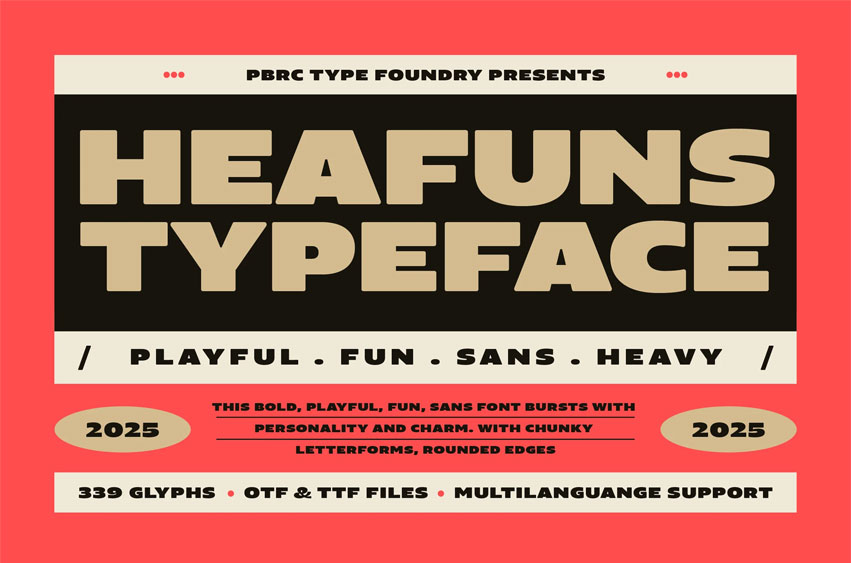
Heafuns Typeface Font
Heafuns Typeface Font is a bold, playful sans-serif font with chunky, smooth letterforms that blend fun and strength.
Perfect for posters, headlines, branding, packaging, and any design needing a lively yet solid visual feel.
Ideal for headlines, logos, editorials, packaging, quotes, films, games, album covers, books, and promotional materials. This font ensures your design stands out in any setting.